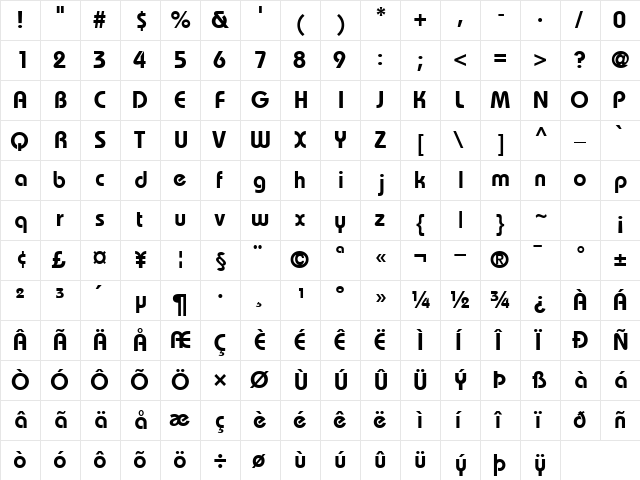
DynameSSK SemiBold
Design Context for DynameSSK Typeface
DynameSSK offers clean, dependable letterforms without strong stylistic allegiance, making it a practical choice for designers who need flexibility. Its bold stroke weight gives it real presence on the page.